2 Google Fonts Similar to Boxed
Boxed is a new typeface that is designed to look good on small screens and on print material. The name explains a lot about the font already. It is known for it's blocky letter style that is unique, but still easy to read.
Trying to find a good alternative was difficult because the font is so unique. However, I believe that I have found two fonts that would work as a good alternative.
What Google Fonts are Similar to Boxed?
The most similar looking fonts to Boxed in the Google Font library are:
- Coda
- Barlow
Either one of these fonts would make for a good alternative to Boxed.
Below, I cover what they have in common and what their differences are.
Coda
I believe that Coda does the best job in matching Boxed. Although it is not an exact match, I believe that it captures the same spirit that Boxed is trying to display.
It also features many straight lines and short endings. It does a great job in matching most of the letter formations in lowercase.
The uppercase also does a great job except you will find some minor differences in the "G" and "J".
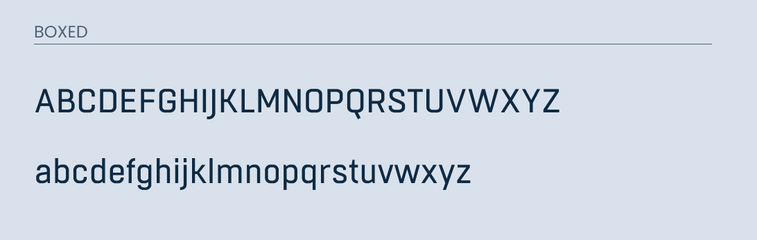
Barlow
Barlow would also be a good alternative to Boxed. I believe that it does a pretty good job in matching the majority of the letters in both upper and lowercase.
Although it is not quite as blocky as Boxed, it still features many straight lines that give off a similar feel as Boxed.
Final Thoughts
I believe that Coda will be your best bet in using it as a replacement for Boxed. If Coda doesn't work for whatever reason, then you can use Barlow instead. Neither font is an exact replacement for the original, but they should work for any project on a budget.